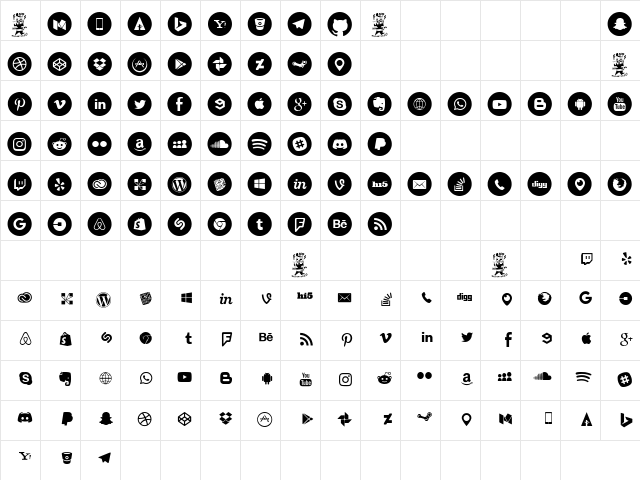
Social Media Circled Regular
Design Context for Social Media Circled Typeface
Social Media Circled is a composed and adaptable typeface that performs quietly and consistently across a wide range of design contexts.